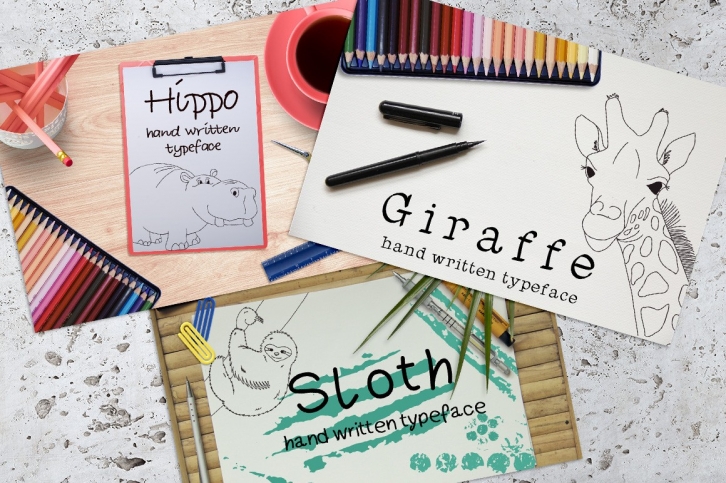
No.1, No.2 and No.3 is a trendy and unique font with an authentic style. It was designed by Sunshine Inspired Designs and it's a great choice for creative people who need such a font. It was released on August 29, 2016 and the file size is 3.89 MB. No.1, No.2 and No.3 will add an organic vibe to any design idea!